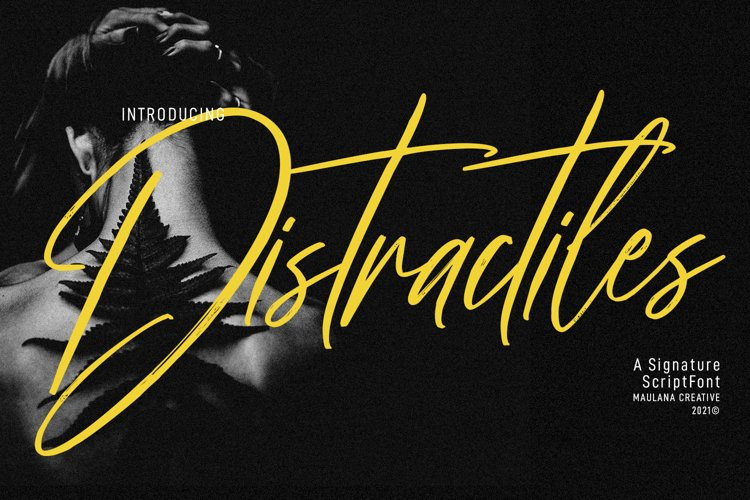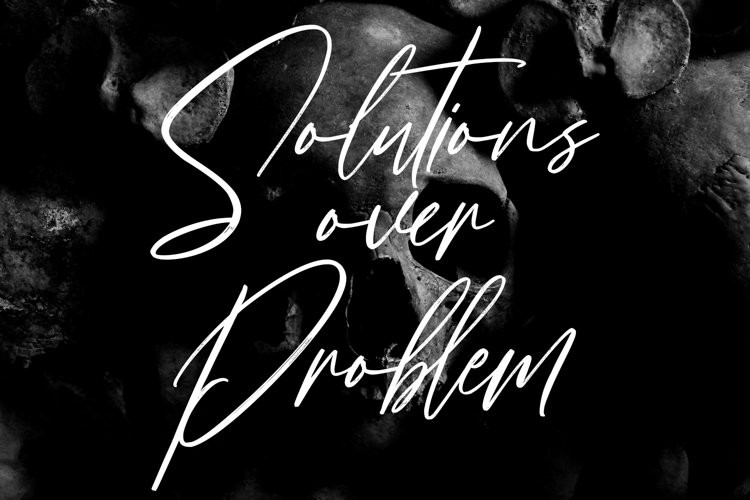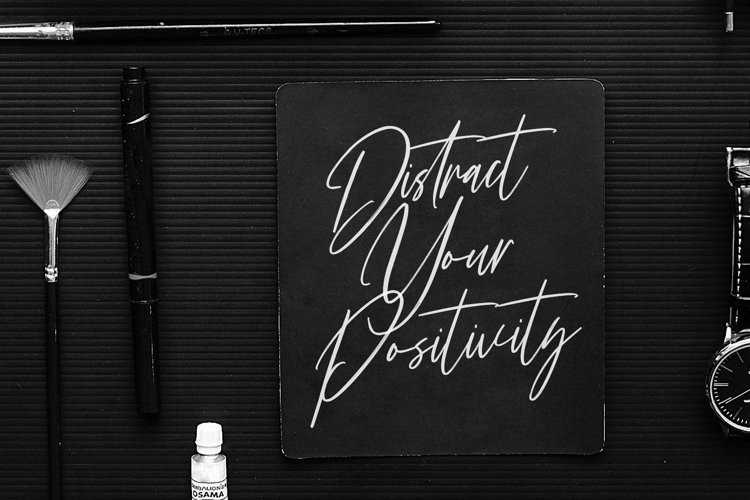
Distractiles Font
Distractiles is an Expressive Signature font. With light contrast stroke, super slanted and fun character with lot of ligature and lowercase alternates. To give you an extra creative work. Distractiles font support multilingual more than 100+ language. This font is good for logo design, Social media, Movie Titles, Books Titles, a short text even a long text letter and good for your secondary text font with sans or serif. Make a stunning work with Distractiles font.